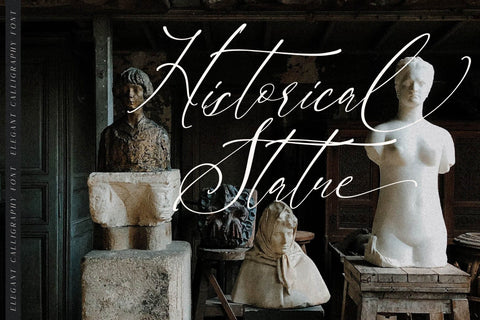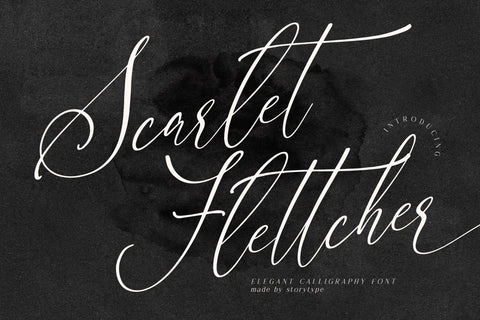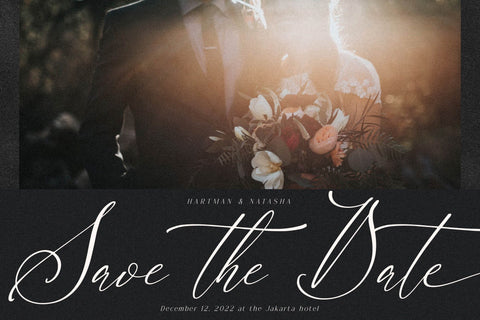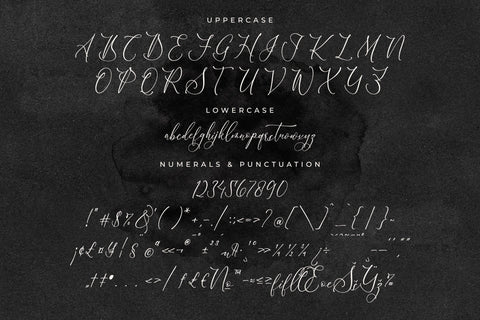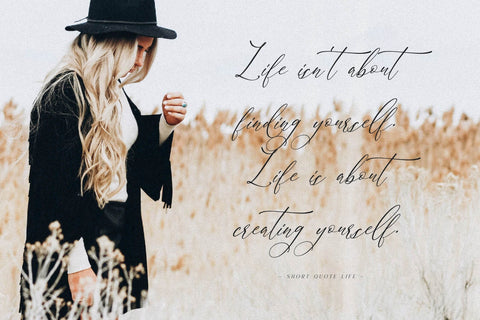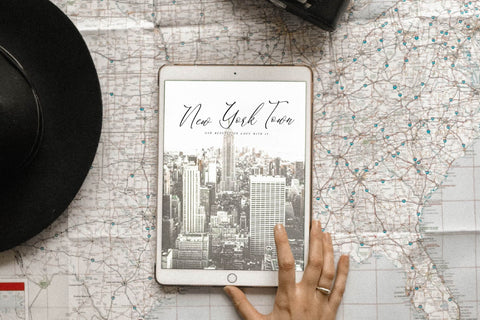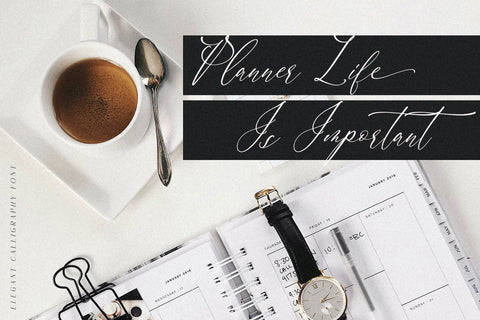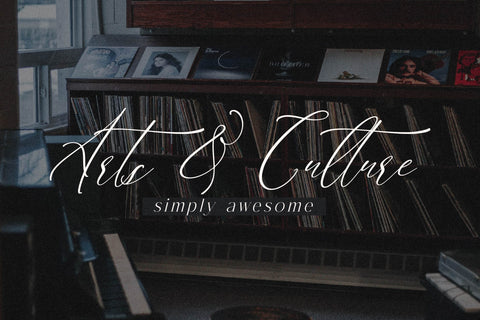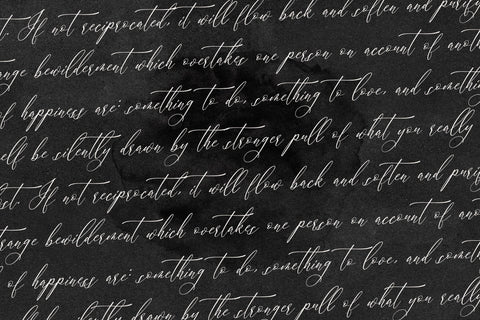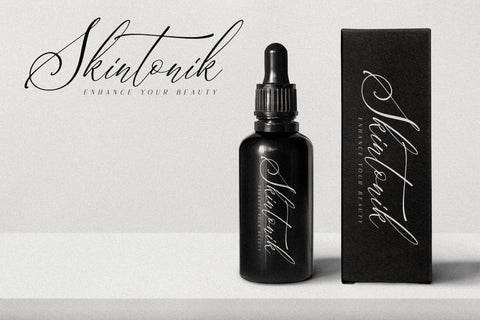
Scarlet Flettcher - Elegant Calligraphy Font
Proudly present Scarlet Flettcher - Elegant Calligraphy Font , created by Storytype,
A luxury script that has own unique style & modern look.